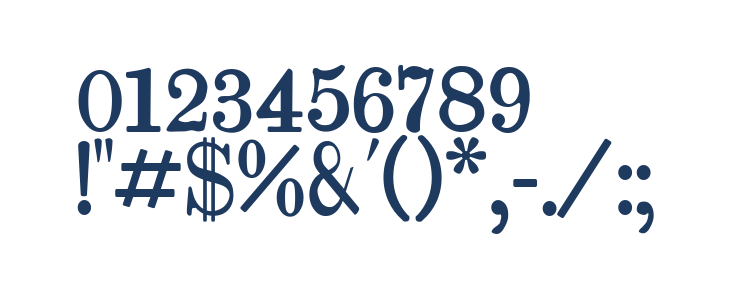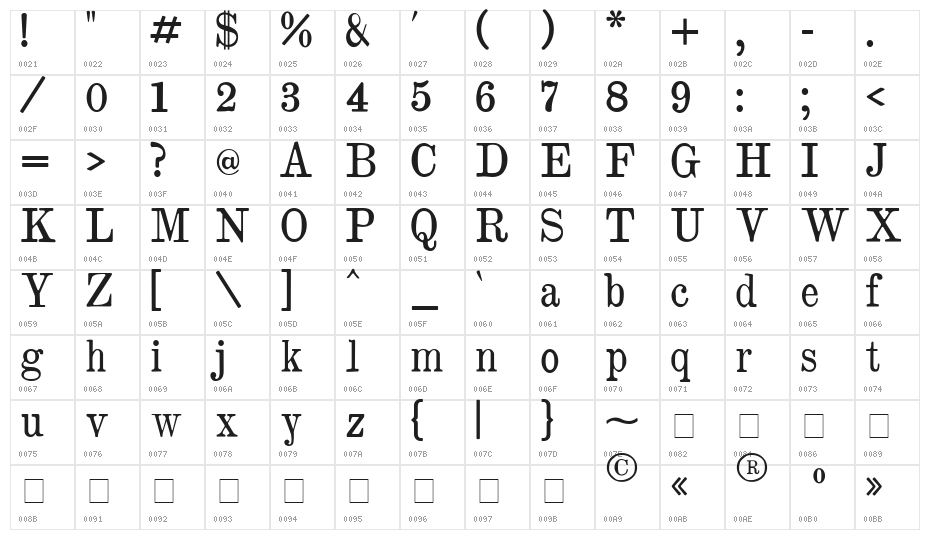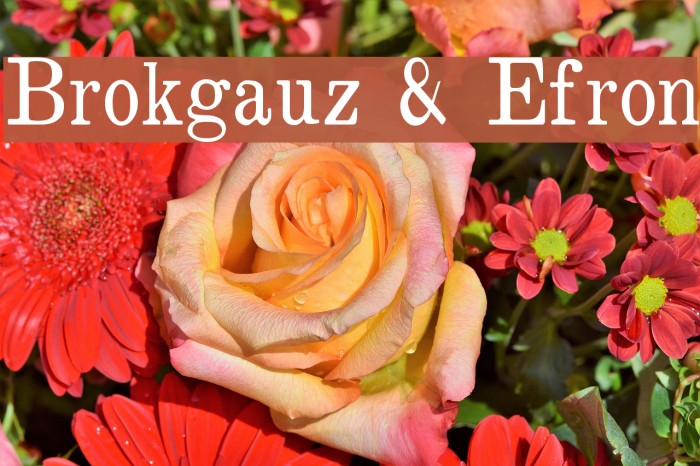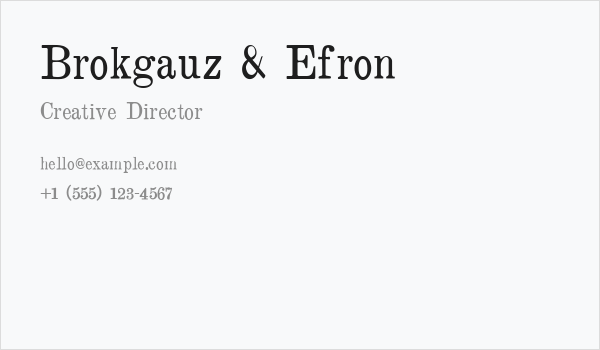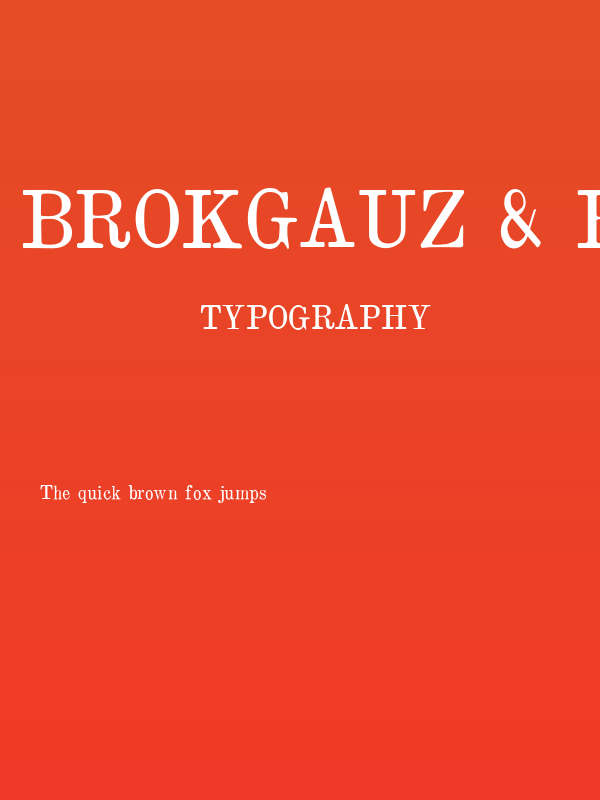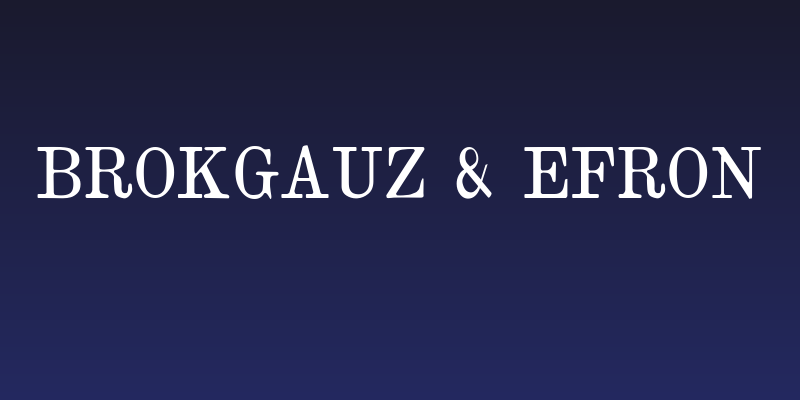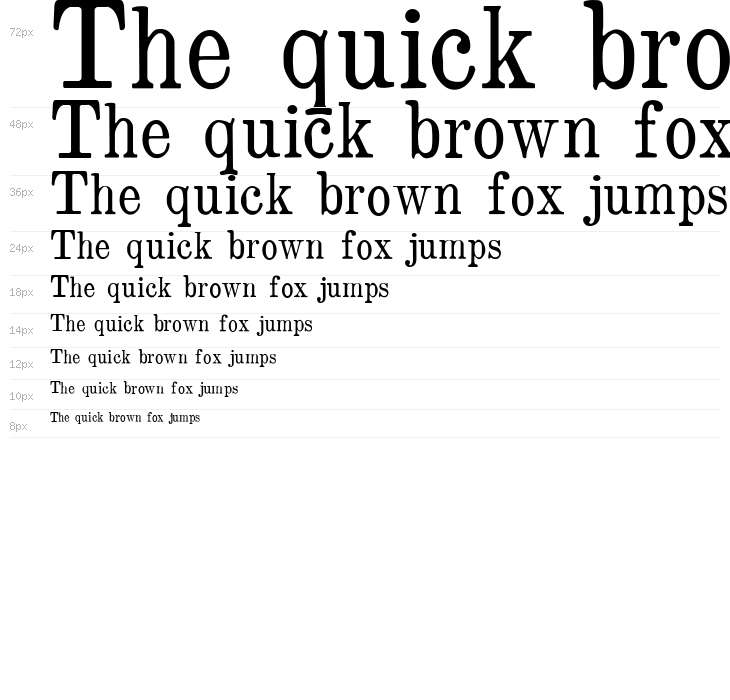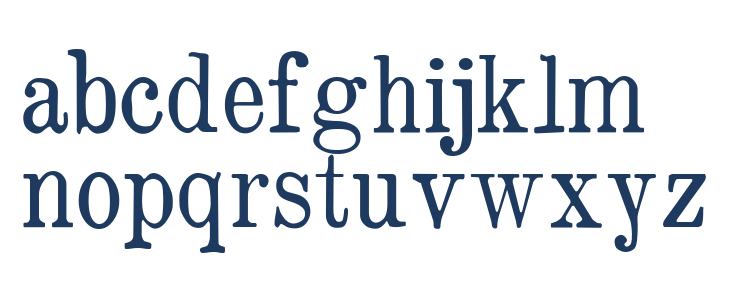
Brokgauz & Efron Font
Brokgauz & Efron Description
This font features a classic serif style with distinct, bold strokes and high contrast between thick and thin lines. The uppercase letters are strong and commanding, while the lowercase letters maintain a traditional and elegant appearance. The numerals are clear and easy to read, with a slightly rounded design that complements the overall aesthetic. Special characters are well-defined, adding versatility to the font's use. The serifs are pronounced, giving the typeface a timeless and authoritative look, suitable for formal and professional settings.